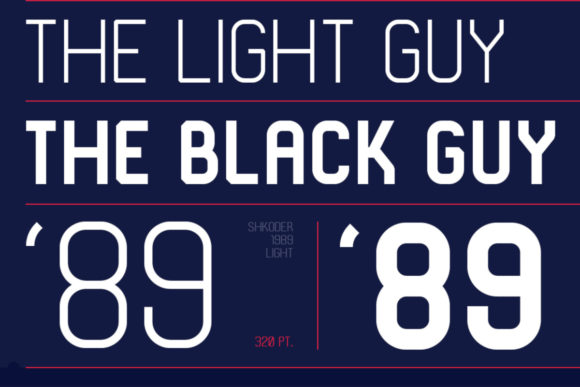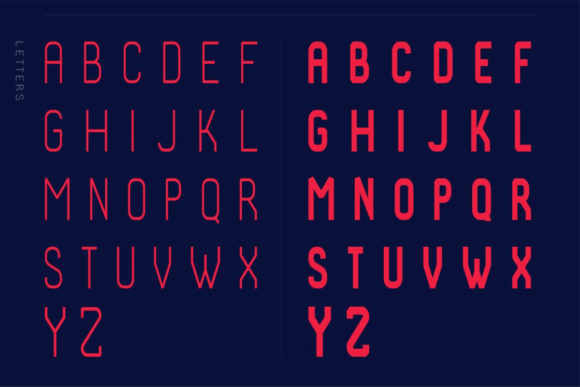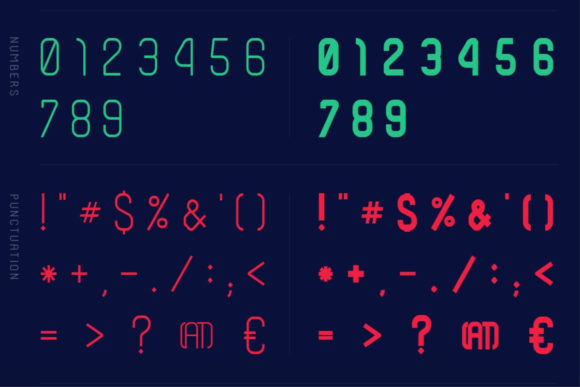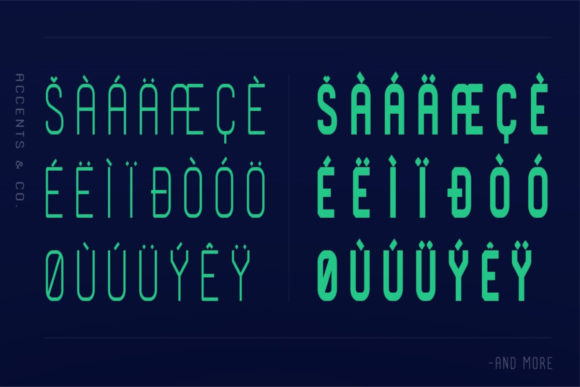
About Shkoder 1989 Font
The Shkoder 1989 is a “techy” and “sporty” font, inspired by the 90’s. It’s projected to work well for print and digital combining his two weights. It’s all caps and includes a lot of glyphs to give a 90’s feel to your projects!